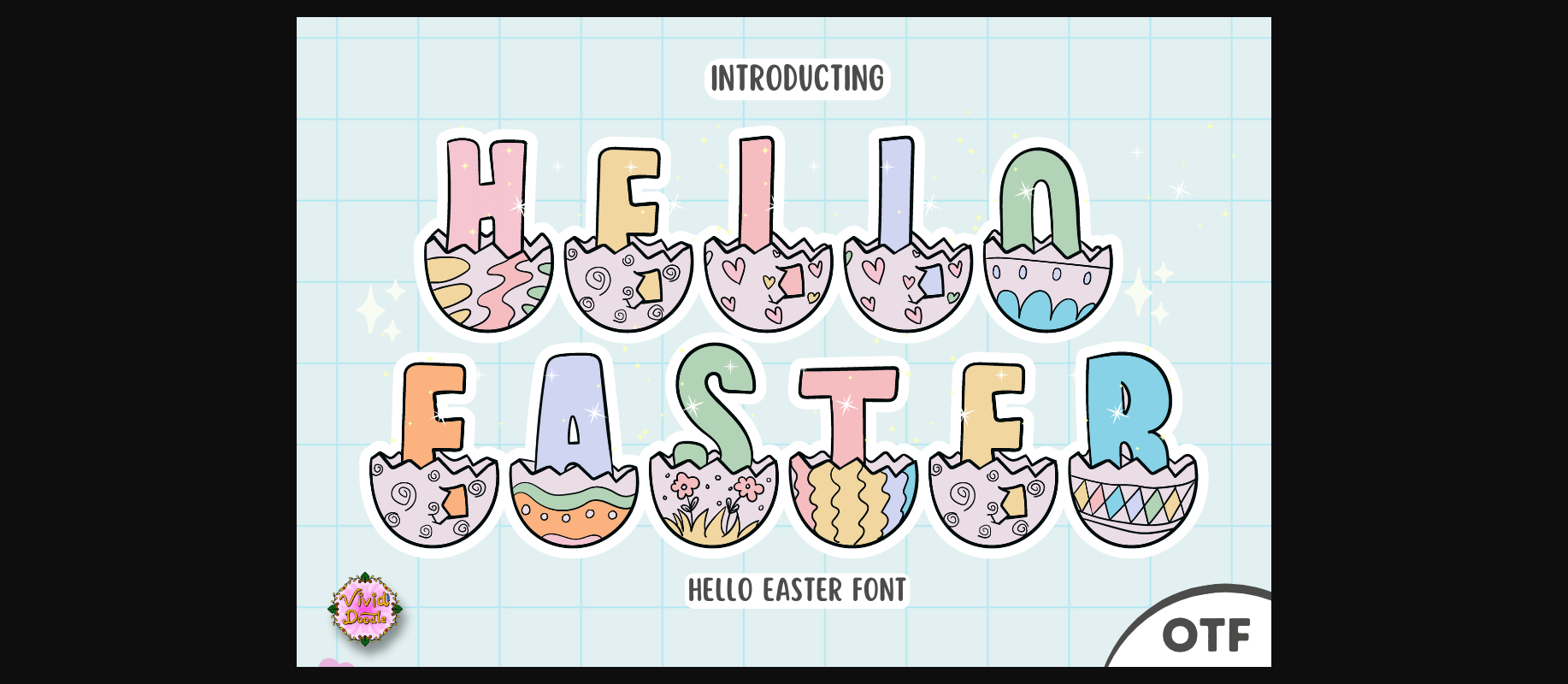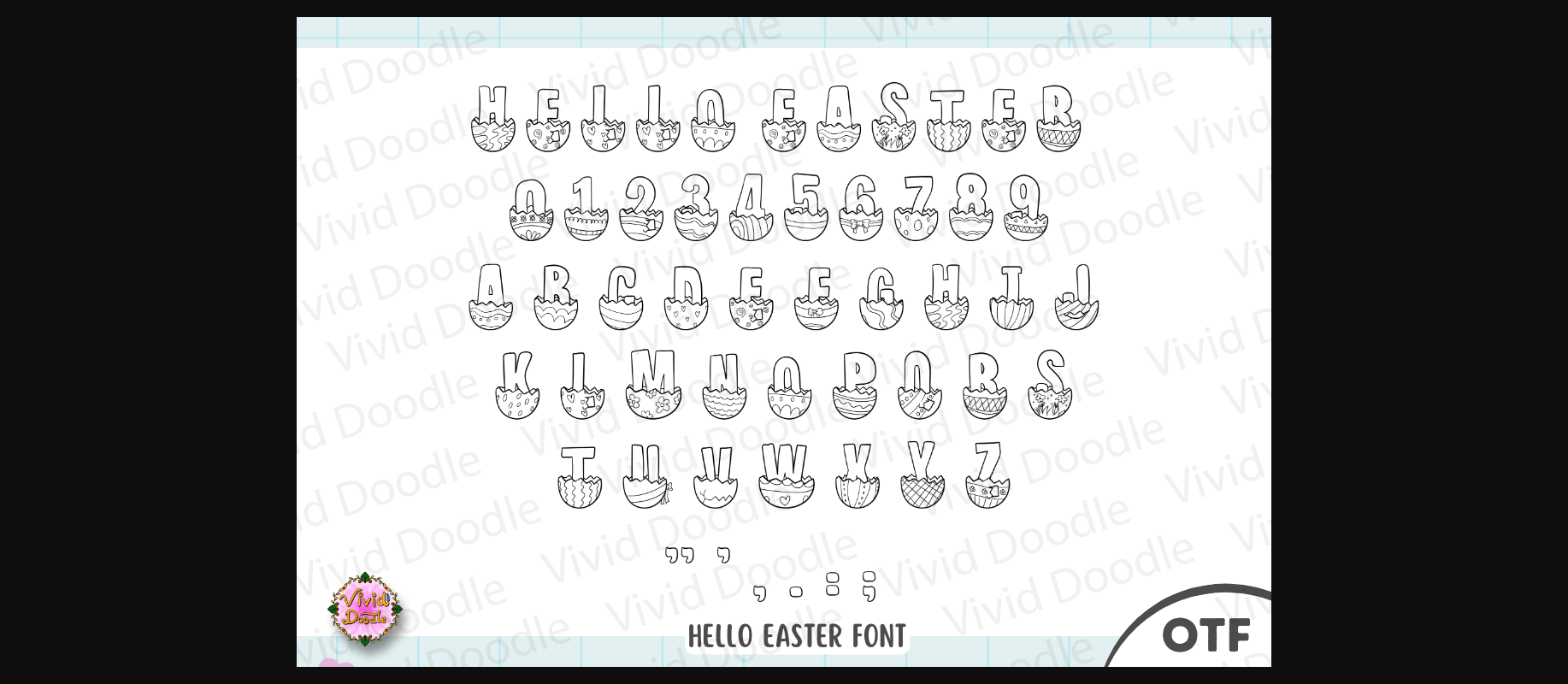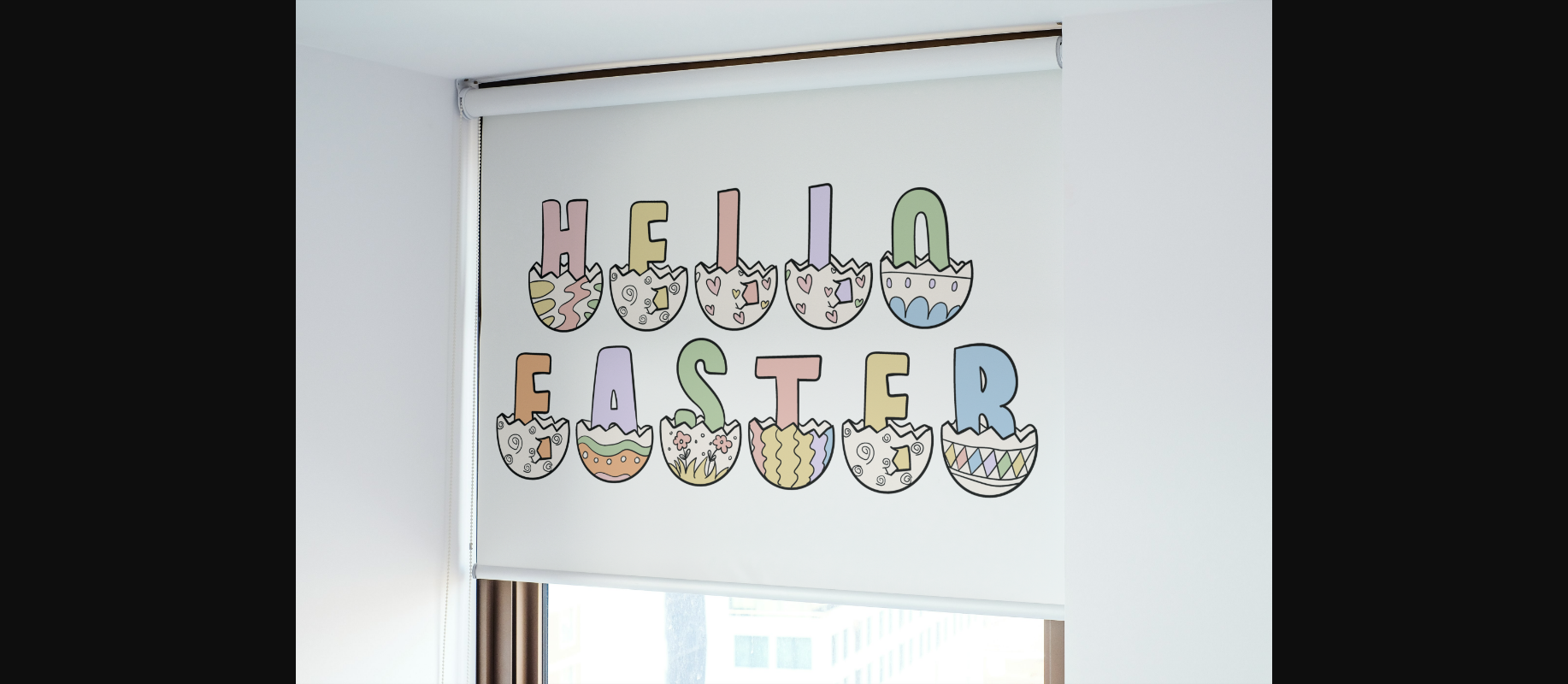
About Hello Easter Font
Introducing “Hello Easter” Font—a joyful and festive typeface crafted to infuse every project with the spirit of Easter. Whether creating Easter cards, seasonal decorations, or any design that seeks to convey the cheerful essence of the holiday, this font is designed to bring a lighthearted and festive touch to your work. The playful and vibrant characters embody the joy and celebration of Easter, making each project a colorful and lively expression of the season. Elevate your designs with the delightful charm of “Hello Easter” Font and transform your work into a vibrant celebration of Easter’s spirit.